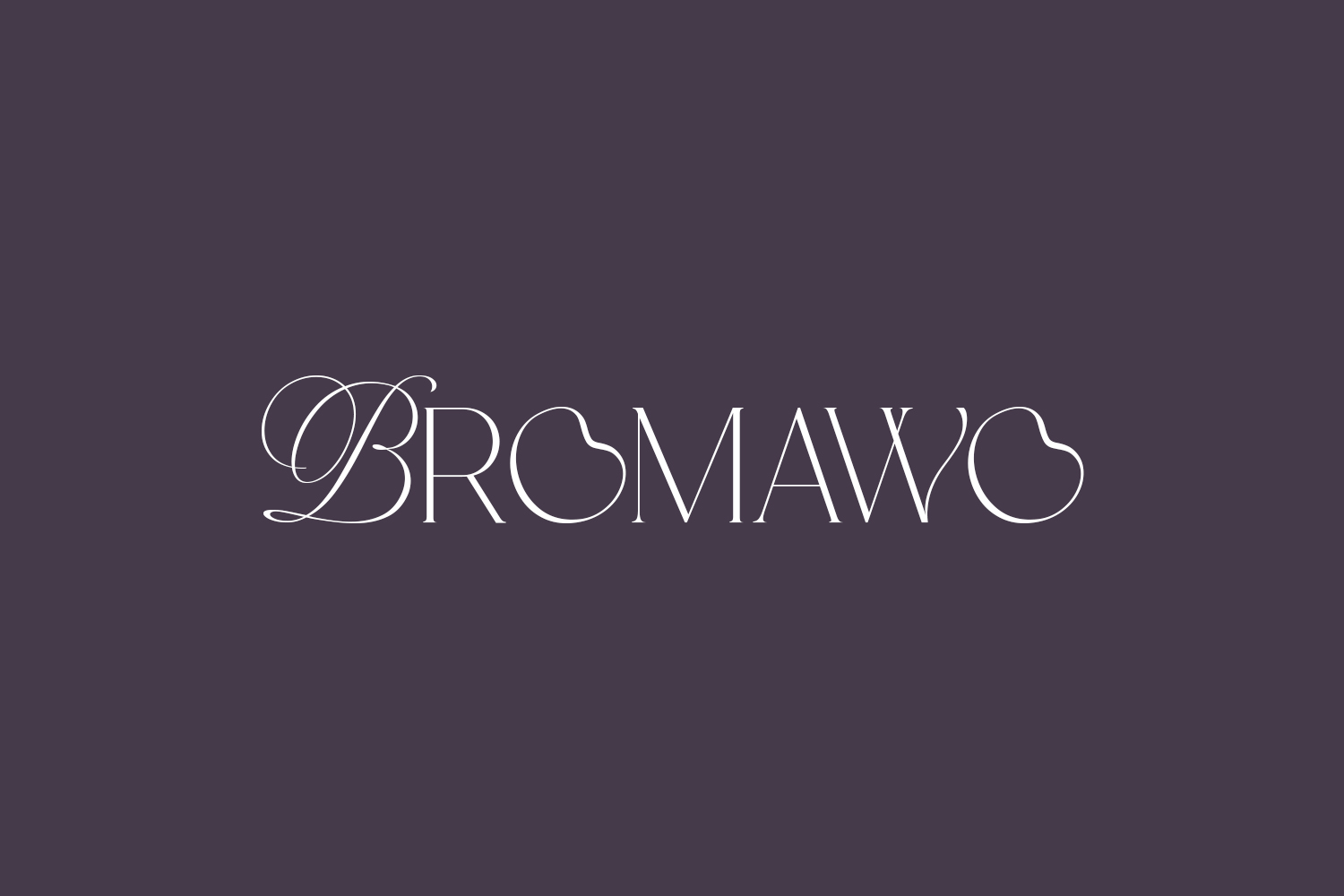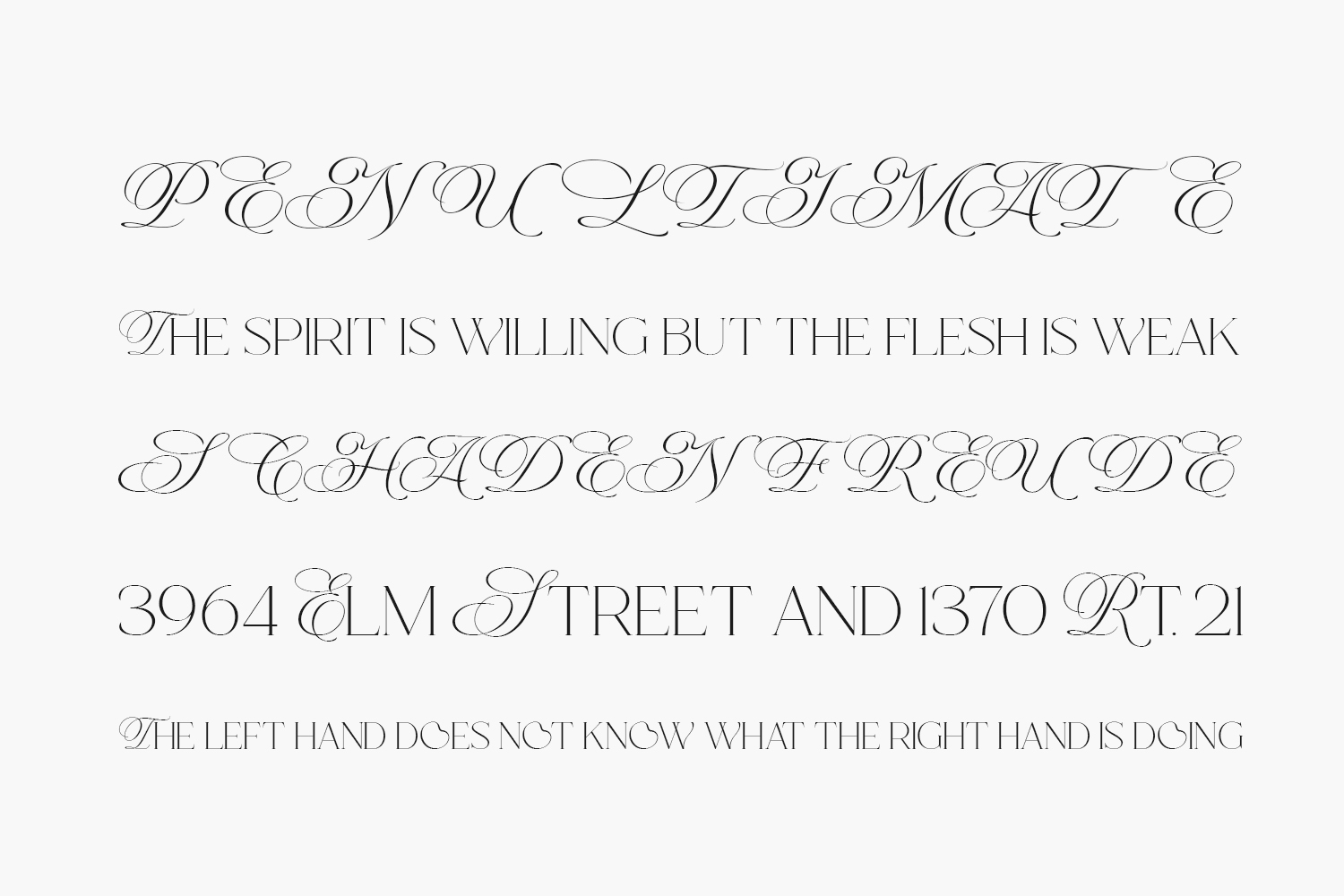
Bromawo Free Font is an exquisite and charming display font infused with a trendy flair. Expertly crafted for luxurious, elegant, and feminine projects, this font is the perfect choice for crafting contemporary and stylish designs. Bromawo Free Font is free for personal use only. Please purchase the full version for commercial use.